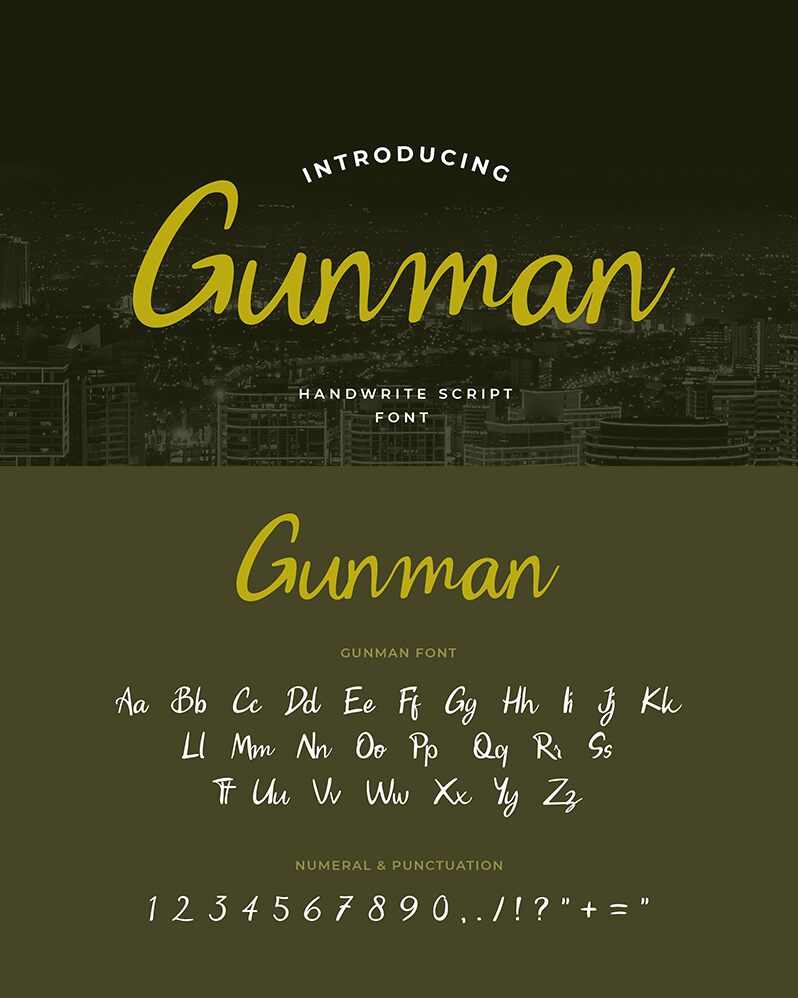
Gunman
Gunman Script is a font that has a script typeface with a slightly thick combination of typical hand paint. Looks elegant, modern, and balanced between the blend of each font. Certainly, it is suitable for your brand-name fonts, such as posters, craft products, T-shirts, event projects & logos, merchandise, magazine covers, social media posts, product packaging, and more.